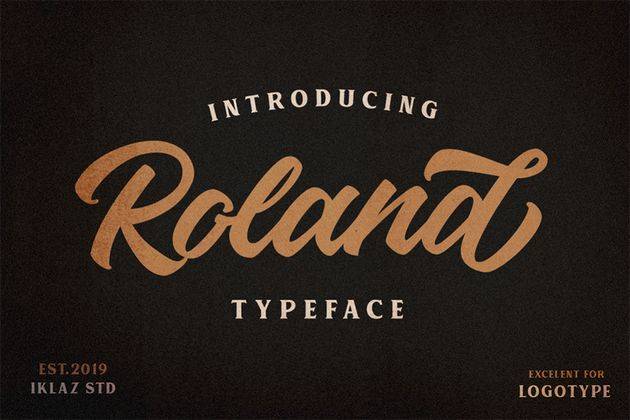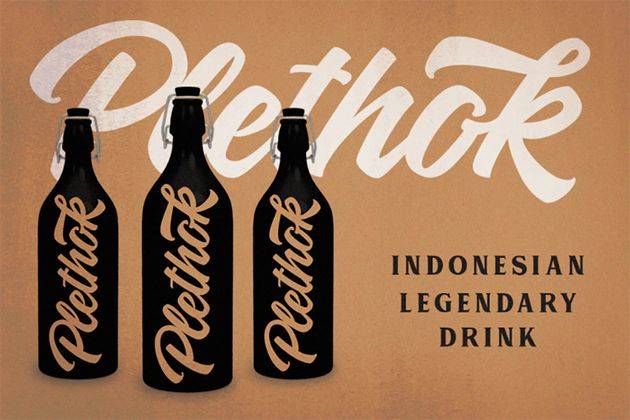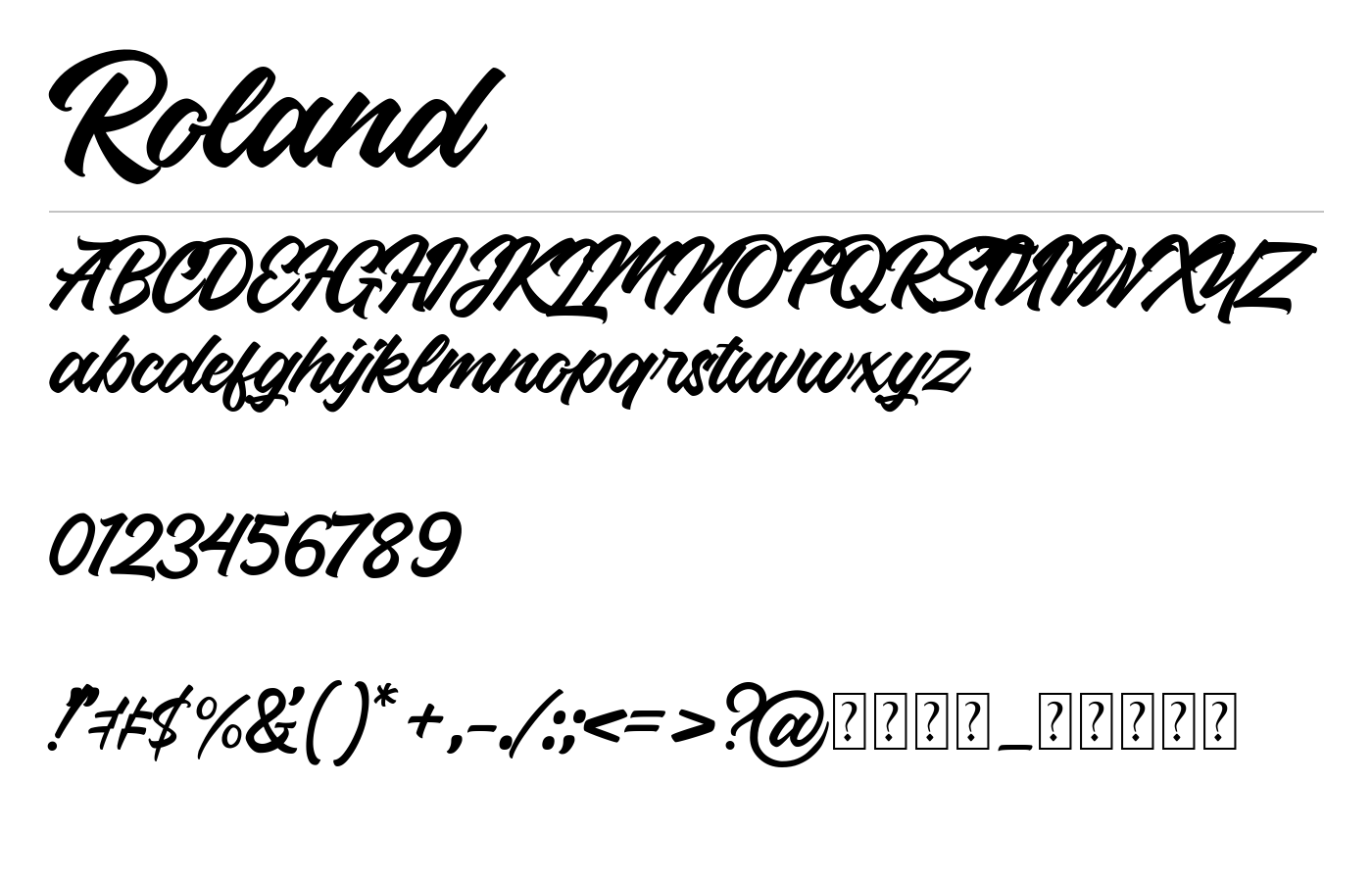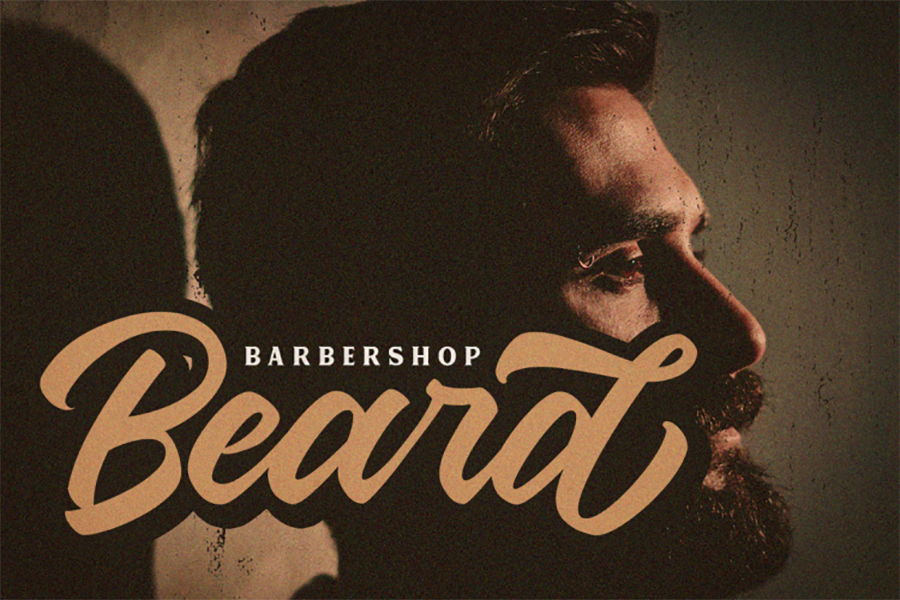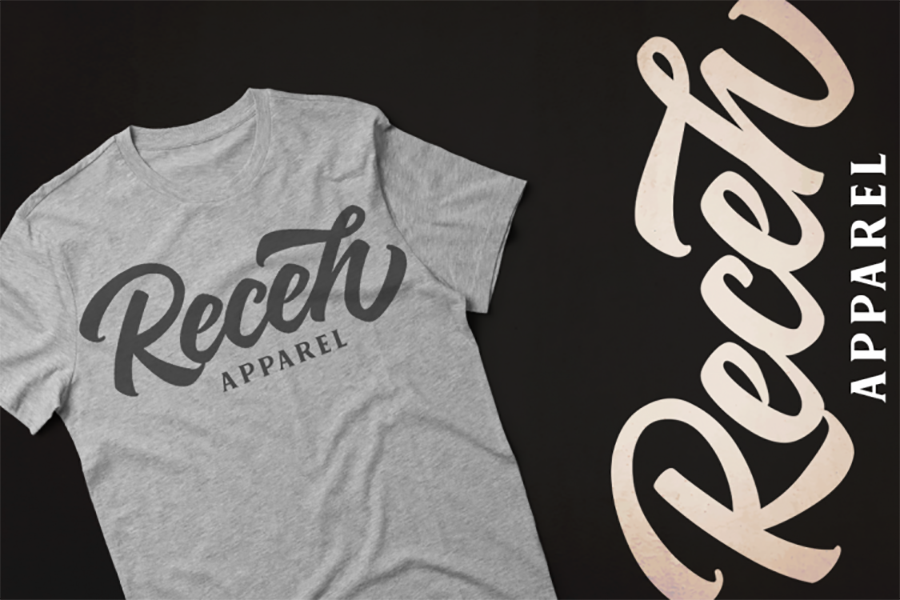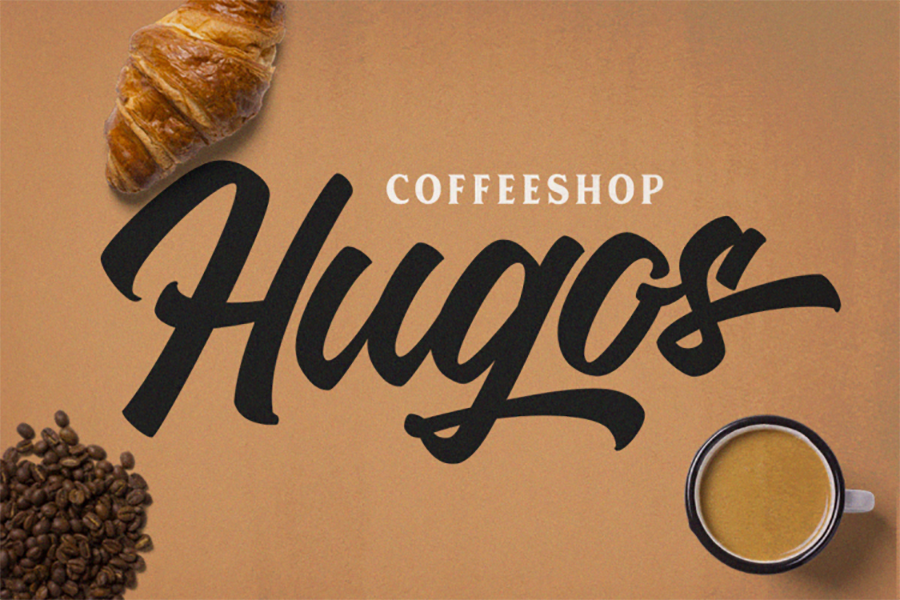
Roland Handlettering Script is a bold, flowing script font that captures the charm of hand-painted lettering with smooth, slightly slanted strokes and a lively rhythm. Its rich, connected letterforms and moderate contrast give it a dynamic yet approachable feel, making it perfect for branding, invitations, and packaging that seek a warm, personal touch with a modern flair. This font shines in headlines and logo designs where a strong, elegant handwritten style is desired to convey friendliness and creativity.
Roland Handlettering Script
About Roland Handlettering Script
| Font family | Roland Handlettering Script |
| Release date | 2019-03-08 |
| Designer | Salman Mashudi |